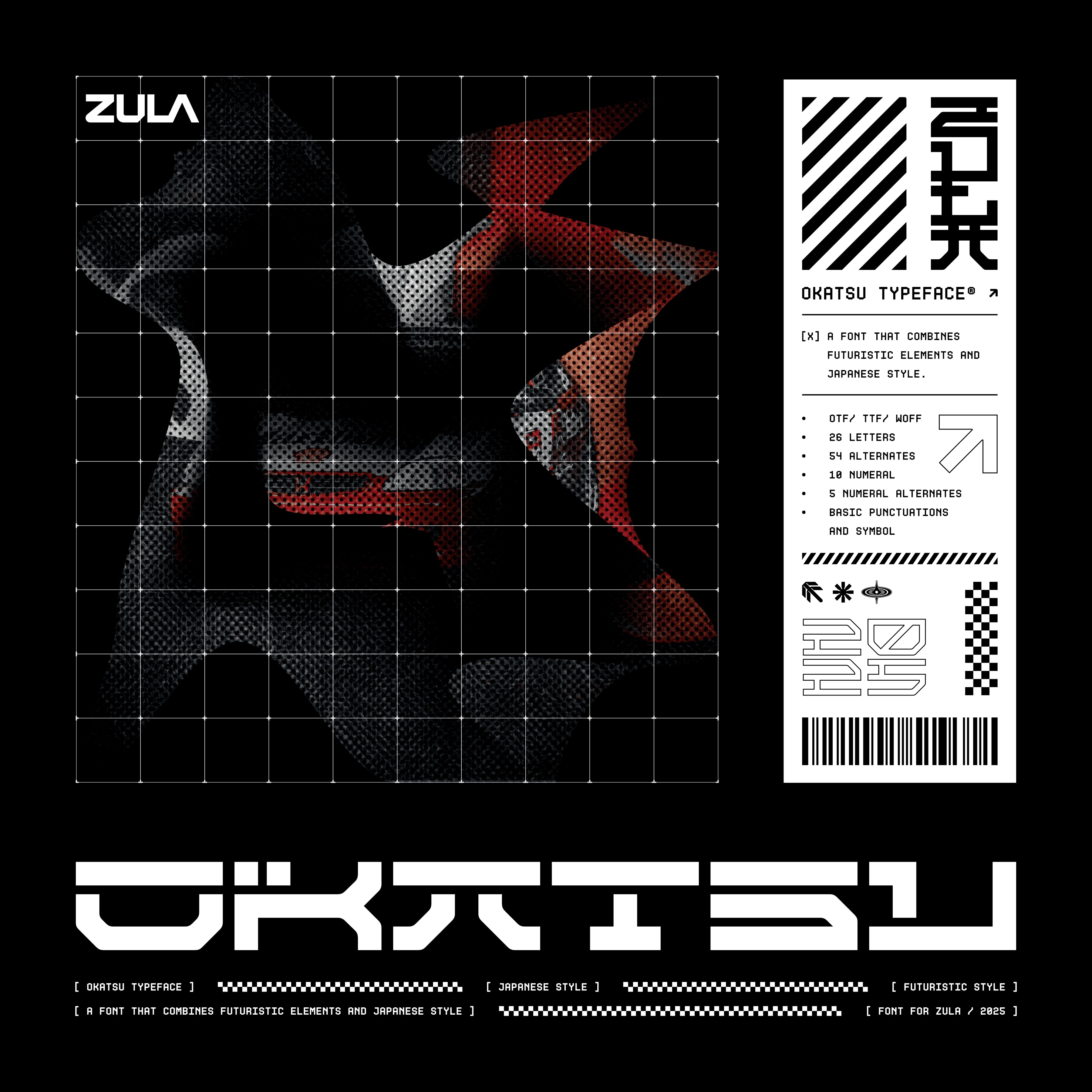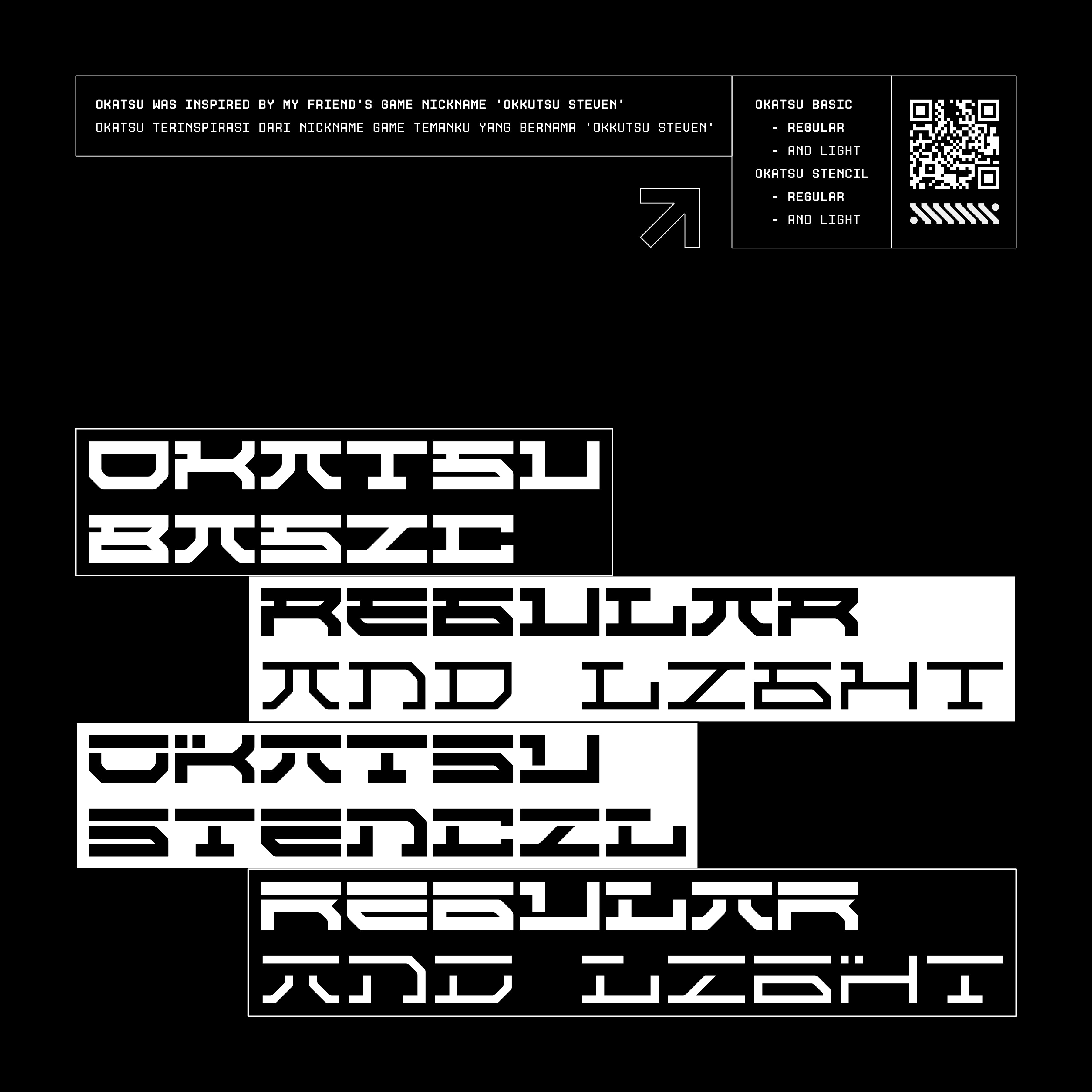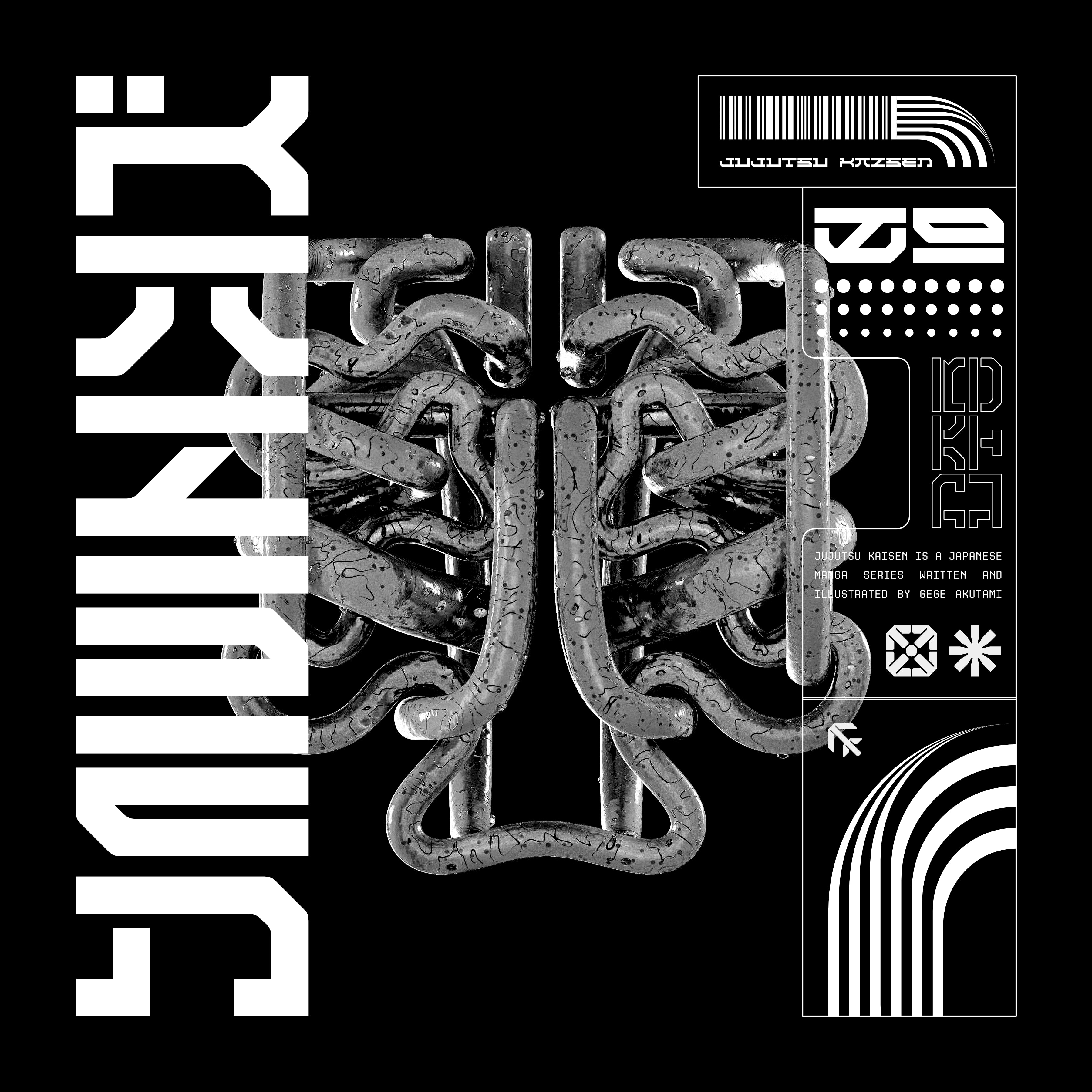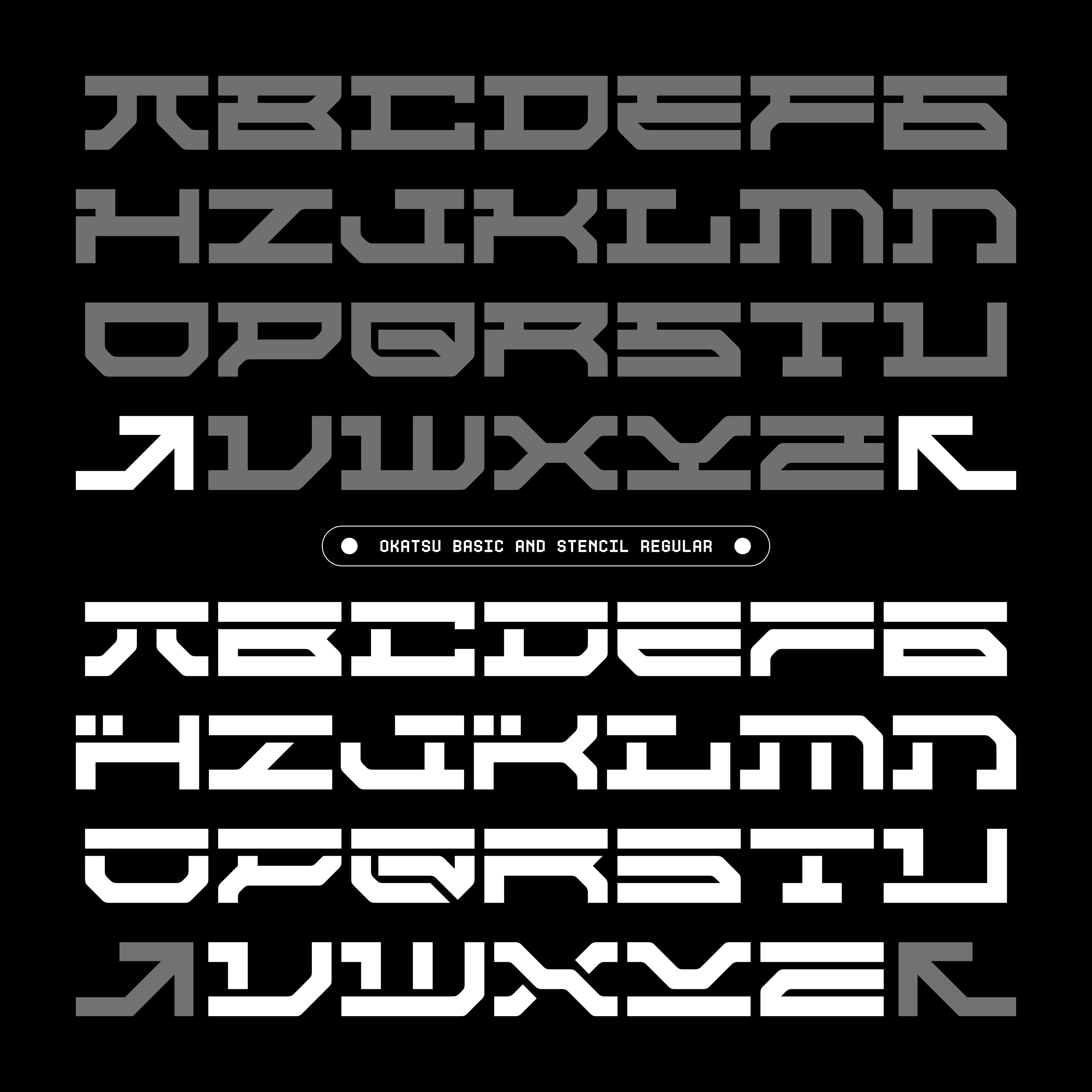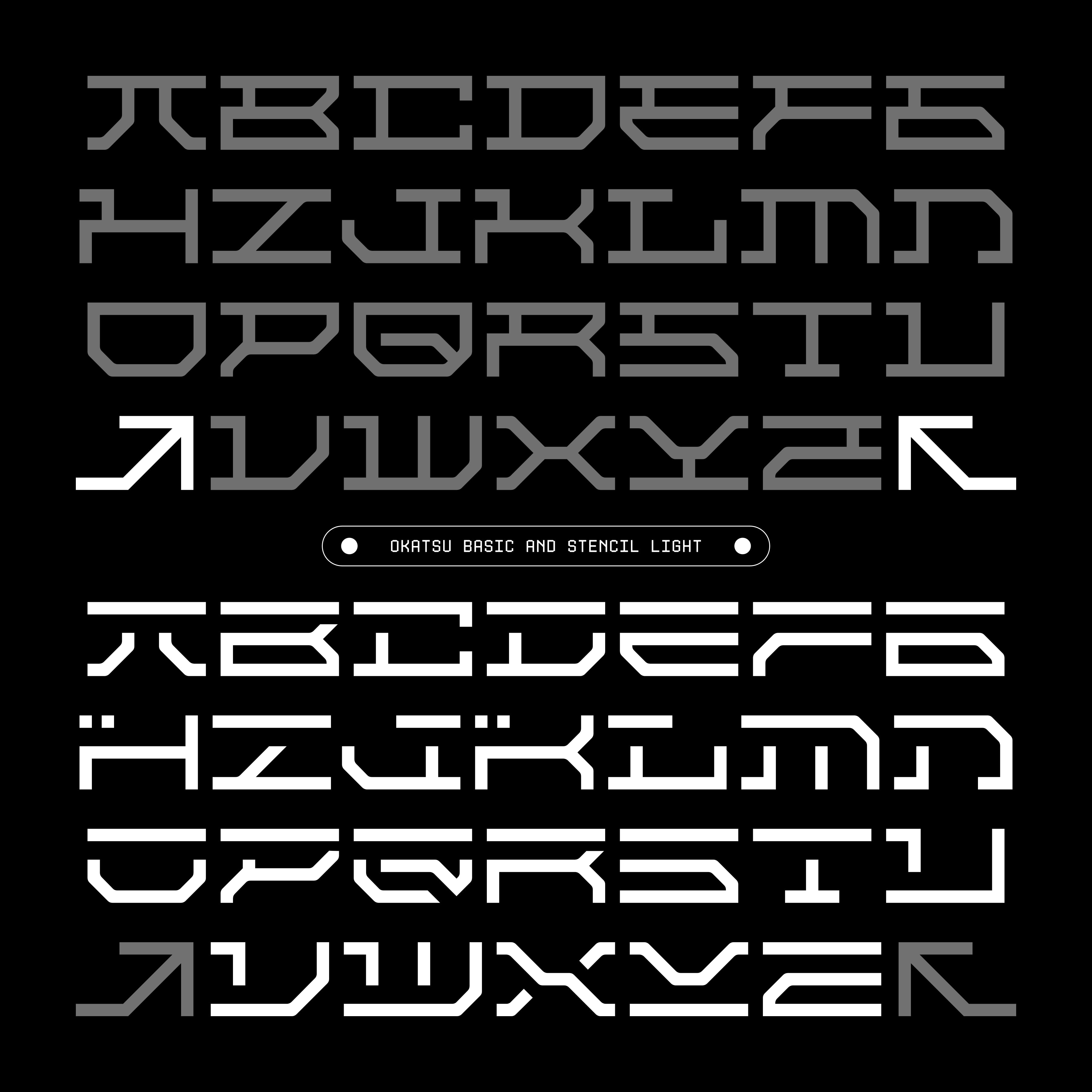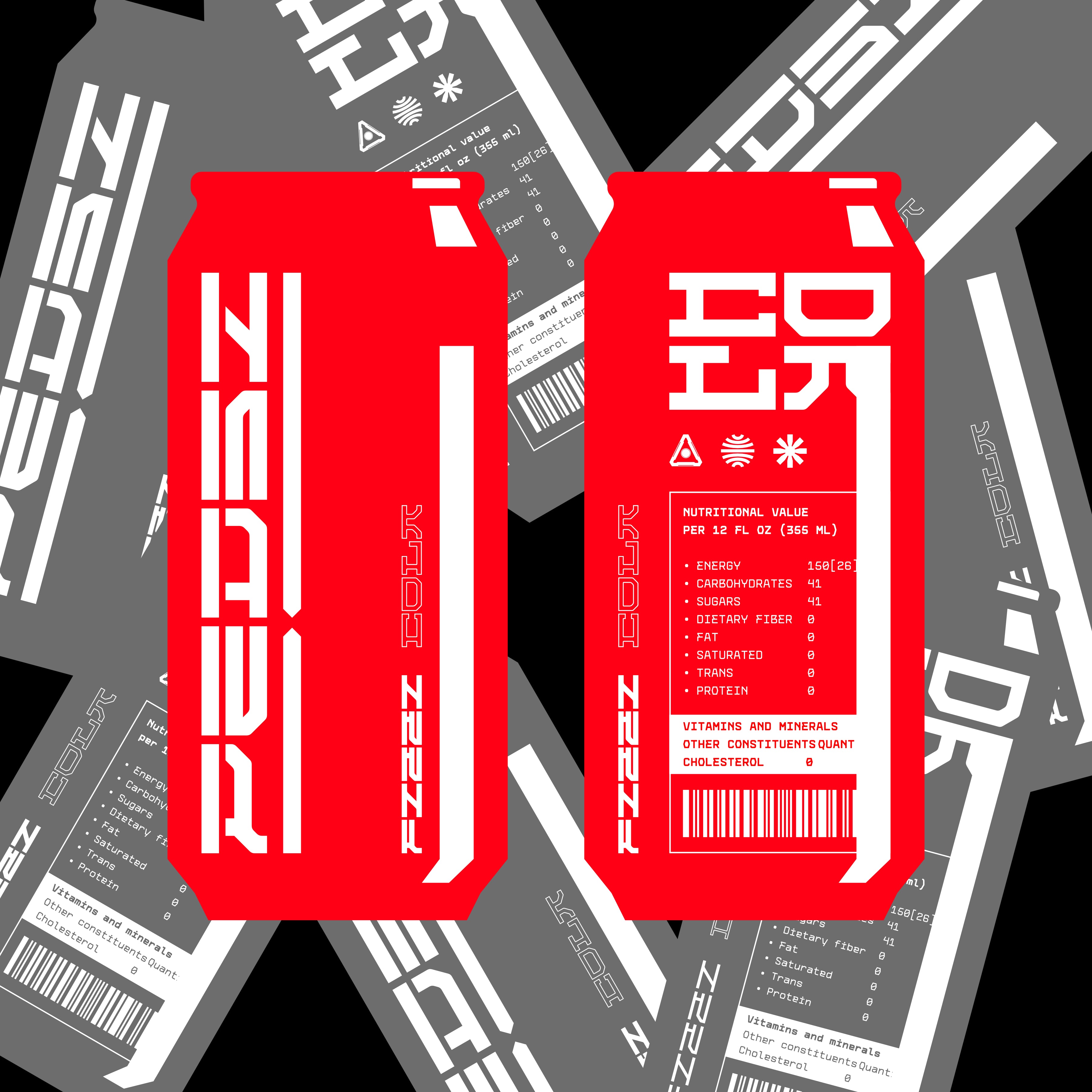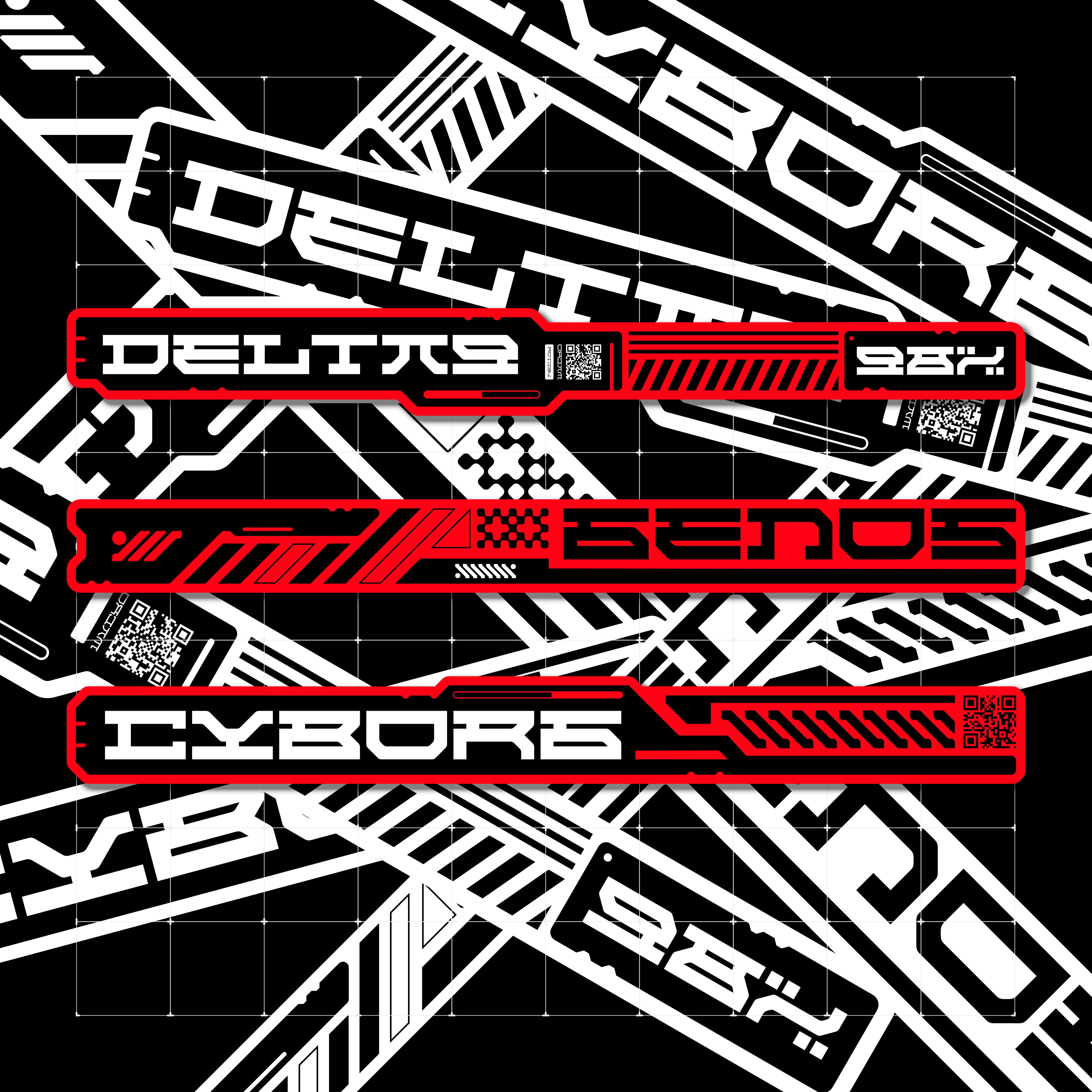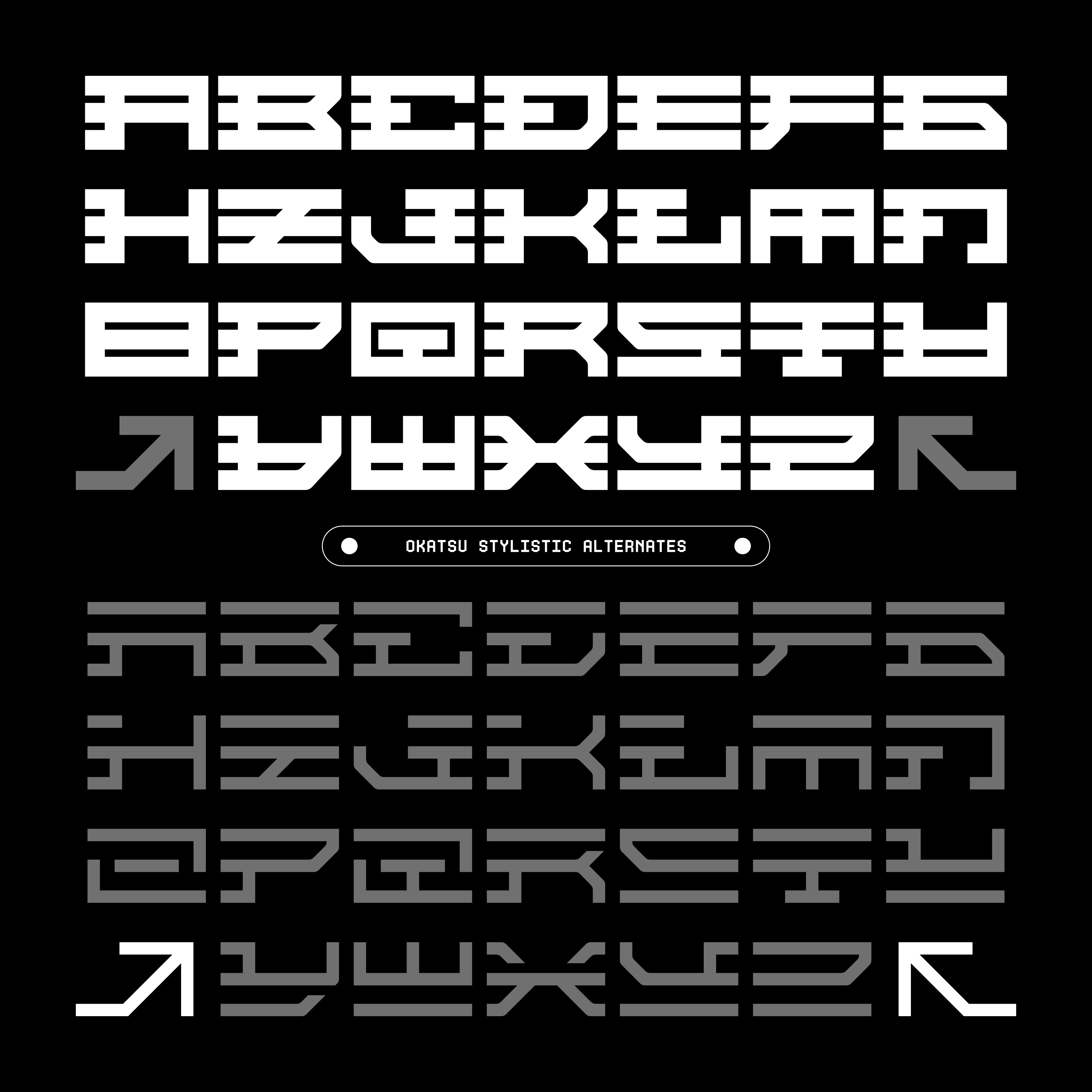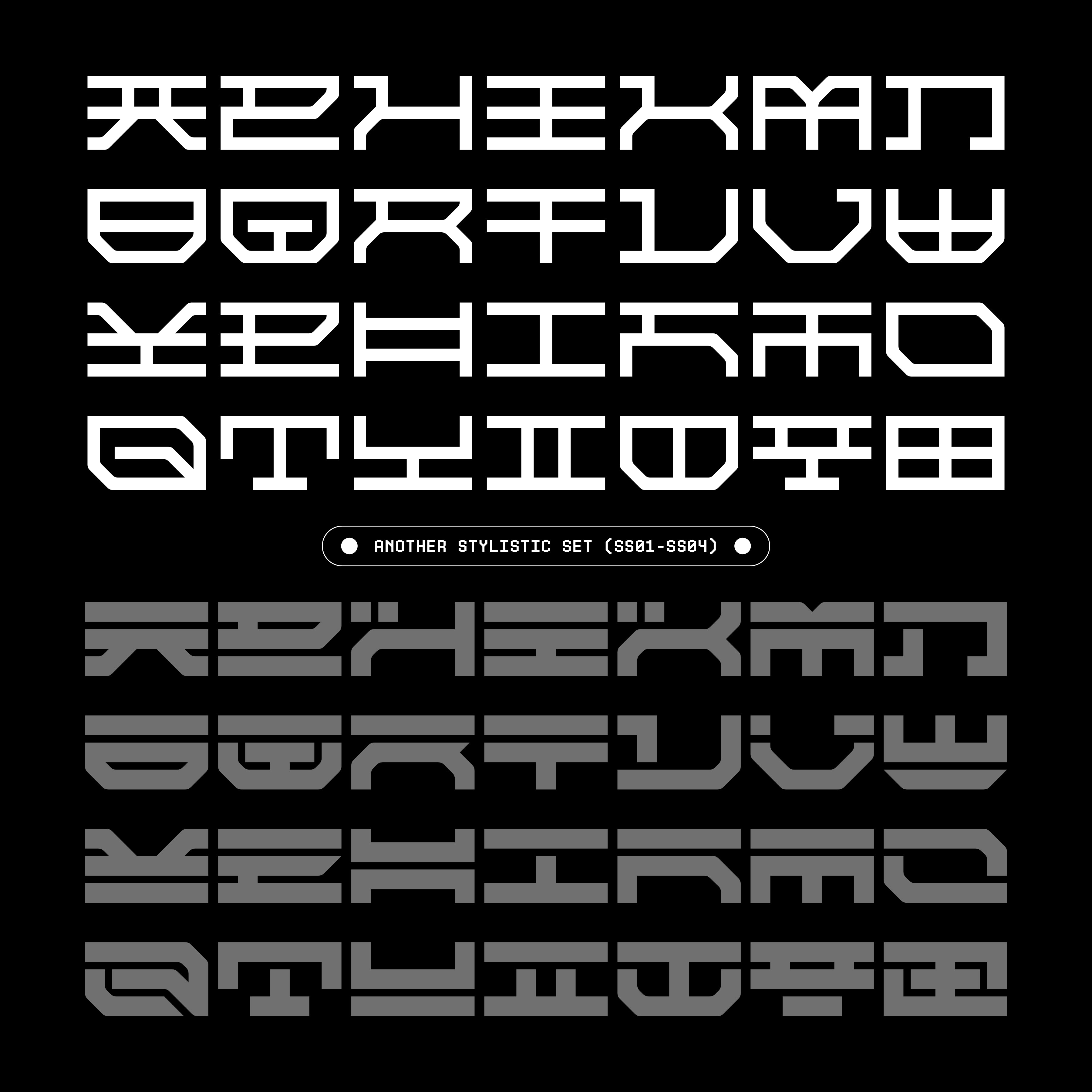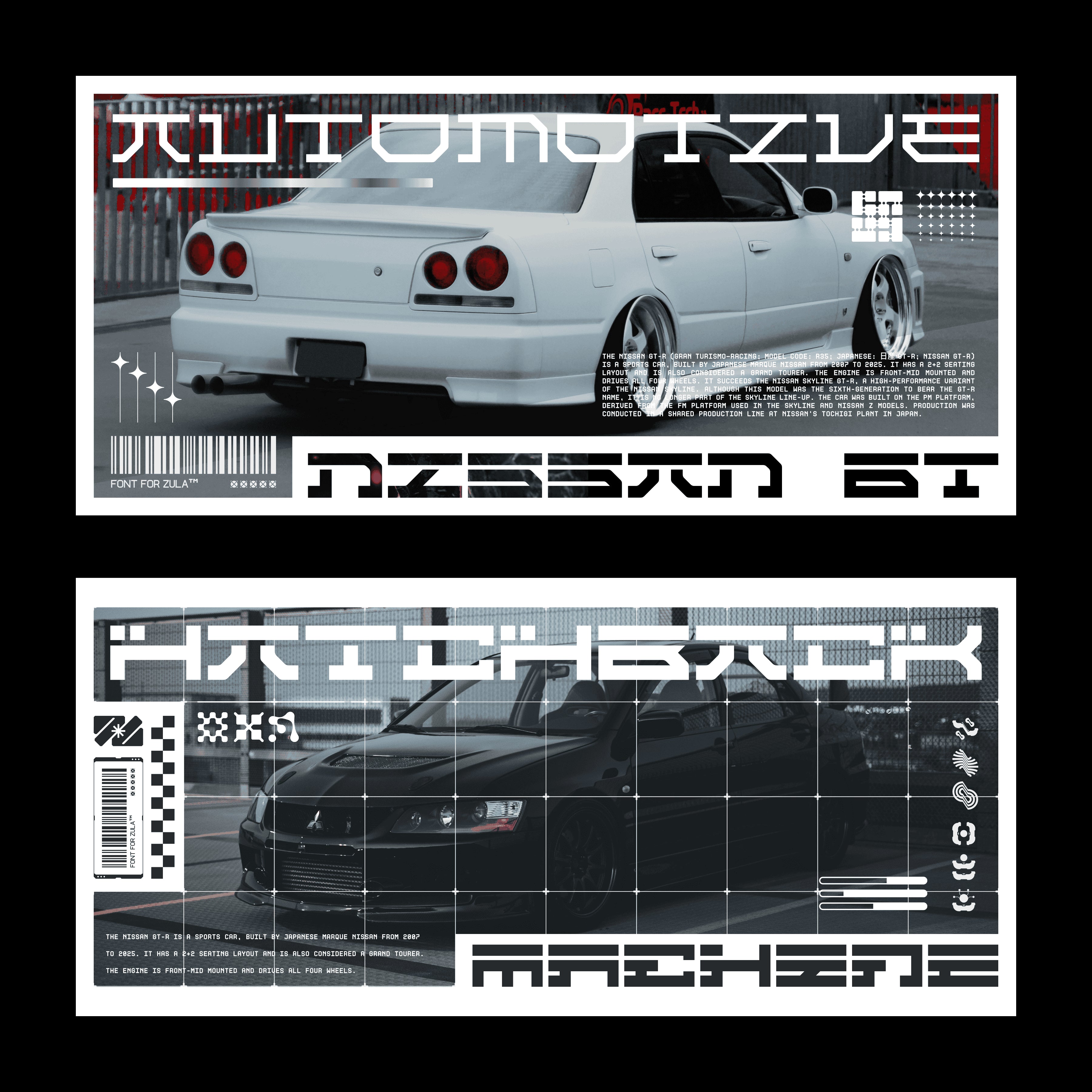
OKATSU TYPEFACE FAMILY
The OKATSU TYPEFACE FAMILY features a unique design that combines futuristic elements with Japanese influences, offering two variants—Basic and Stencil—in Regular and Light styles. It includes 6 letters, 54 alternates, 10 numerals with 5 numeral alternates, and basic punctuation and symbols, available in OTF, TTF, and WOFF formats.